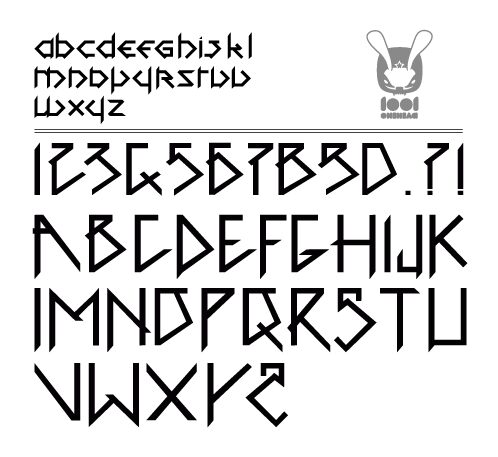
1001head Font by Thomas Boucherie of EPSO is a free runic display font with a stark, angular build. Long diagonal strokes dominate the alphabet, often cutting across tall upright forms. Uneven widths and spear-like joins give the lettering the look of carved signs rather than conventional type.
Norse-inspired games and mythic storytelling match these geometric forms. They also suit metal album artwork, festival posters, and merchandise built around ancient or ritual themes. Across those uses, the letters can function as both wording and emblem-like marks.